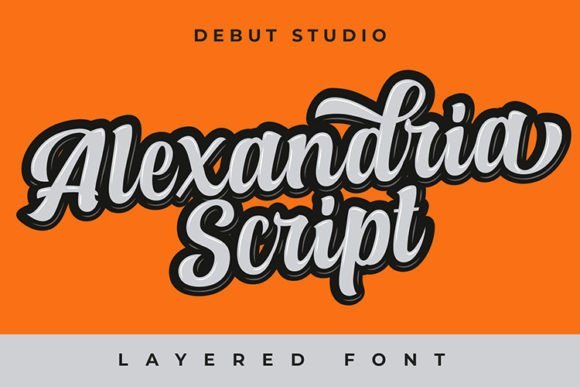
The Art of Handwritten Charm: Unlocking the Power of Alexandria Script Font
Remember the moment when you stumbled upon the perfect font for your wedding invitations, and suddenly, all the design pieces fell into place? It’s that ‘aha’ moment every designer craves, and for many, it’s thanks to the magical world of script fonts. Among them stands out the elegant and charming Alexandria Script Font, designed to add a personal touch to any design.
This beautiful script font is more than just a stylish addition; it’s a way to convey warmth and personality in every project. From wedding invitations and thank you cards to quotes and logos, Alexandria Script Font brings a handwritten charm that sets it apart from other fonts. Its versatility makes it a valuable asset for designers, allowing them to create unique and eye-catching designs that leave a lasting impression.
Alexandria Script Font Key Features
- Font Family: This elegant script font is designed to evoke the beauty of ancient Greek and Roman scripts.
- Unique Characteristics: Features a flowing, cursive design with subtle flourishes and connecting strokes, giving it a sophisticated and elegant feel.
- Language Support: Supports a wide range of languages, including Latin, Greek, and Cyrillic, making it suitable for international designs.
Alexandria Script Font Review
I recently had the chance to work with the Alexandria Script font, and I must say it’s a beautiful addition to any design project. ✨ The flowing lines and elegant curves make it perfect for creating a sophisticated and high-end look. It’s ideal for branding, weddings, and other special occasions where you want to make a statement.
One of the things I love about Alexandria Script is its versatility. ✨ It can be used for both headings and body text, making it a great choice for multi-page documents or websites. The font also comes in a range of weights, from light to bold, which gives designers plenty of options for creating contrast and visual interest.
- ⚠️ The font can be difficult to read in smaller sizes or when used for large blocks of text. It’s best to use it for headings or short paragraphs.
- ⚠️ The font may not be suitable for digital displays, as it can appear pixelated or distorted on certain screens.
- ⚠️ Some users may find the font too ornate or busy, which can make it difficult to read or use in certain contexts.
Overall, I’m really impressed with the Alexandria Script font. It’s a beautiful and versatile font that can add a touch of elegance to any design project. While it may have some limitations, it’s definitely worth considering for any project where you want to create a high-end or sophisticated look.
Practical Application Guide for Alexandria Script Font
Getting the Most Out of the Font
For best results, pair the Alexandria Script font with a clean and simple sans-serif font. Use the font for titles, headings, and emphasis, and avoid using it for large blocks of text. Experiment with different font sizes, colors, and styles to create a unique and eye-catching design.
The Alexandria Script font is ideal for creative projects such as wedding invitations, menus, and branding materials. It’s also great for adding a touch of elegance and sophistication to your designs.